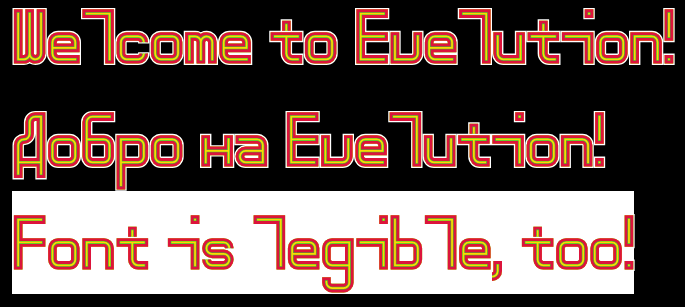
Evelution Color Fun
by HM100
Second ColorComp entry. This one has four colors to create the glyph, with bricks from the Core Category being used for the outline (Which normally can't be seen as it is by default set to White and is to make the font legible in Dark Mode).
Font is proportional though glyphs are at most 3 bricks in width.
Sample font in English and Russian